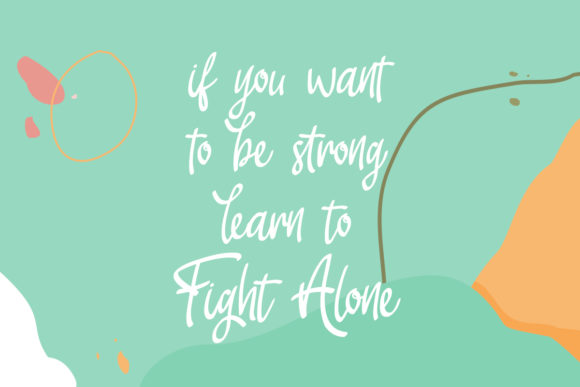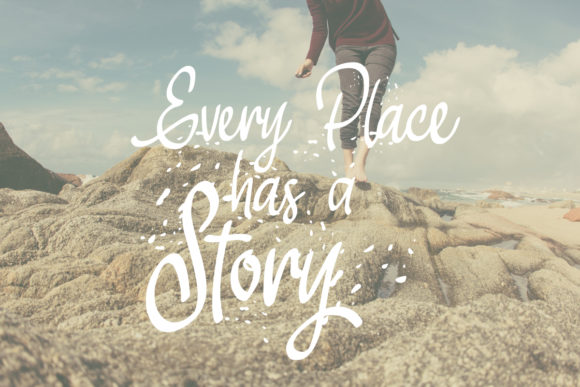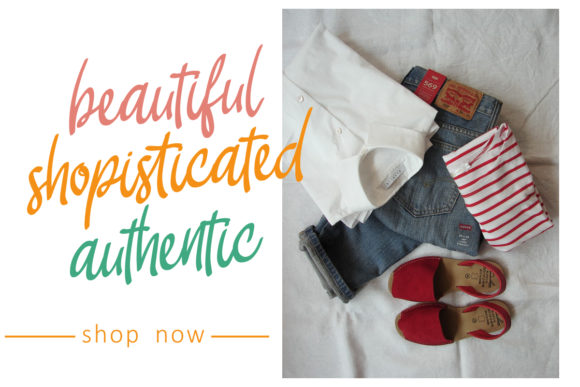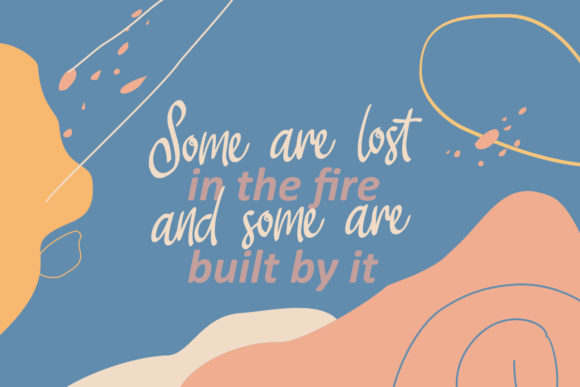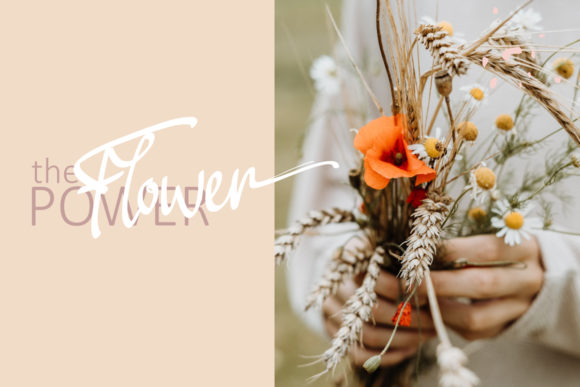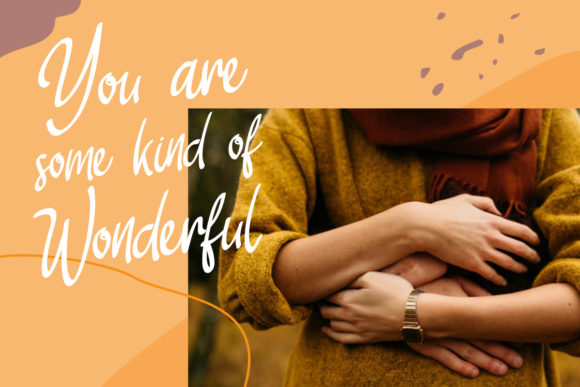
HomeScript FontsBloemist Font Script Fonts Bloemist Font FacebookXPinterestWhatsApp Bloemist Font Poster 2 Bloemist Font Poster 3 Bloemist Font Poster 4 Bloemist Font Poster 5 Bloemist Font Poster 6 Bloemist Font Poster 7 About Bloemist Font Bloemist comes in full swing, with its charming curves and sweet ligatures. Fall in love with its dynamic style! DOWNLOAD ON CREATIVE FABRICAThis font is sold and delivered by Creative Fabrica. Font Canyon may earn a commission if you buy through this link. People also explored Samosan Font Brighgets Font Khula Font Filgana Font Happy Birthday Mom Font Riverdale Font Spaceally Font Squersmars Font Artic Font 341 0 TagsBloemist Font Previous articleVenlo FontNext articleAngel Style Font LEAVE A REPLY Cancel reply Comment: Please enter your comment! Name:* Please enter your name here Email:* You have entered an incorrect email address! Please enter your email address here Website: Save my name, email, and website in this browser for the next time I comment. Personal Use Free Daisy Script Personal Use Free Read more about this font Cline Personal Use Free Read more about this font Morning Miow Personal Use Free Read more about this font Electroharmonix Personal Use Free Read more about this font BLOG How to Install and Use Fonts on Windows, macOS, and Web Projects How to Install and Use Fonts on Windows, macOS, and Web Projects Fonts are a crucial part of design and branding. Whether you’re designing a... Fonts That Capture the Spirit of New York City Top 10 Handwritten Fonts That Elevate Your Designs Best Fonts for T-Shirt Design – Top 2025 Picks